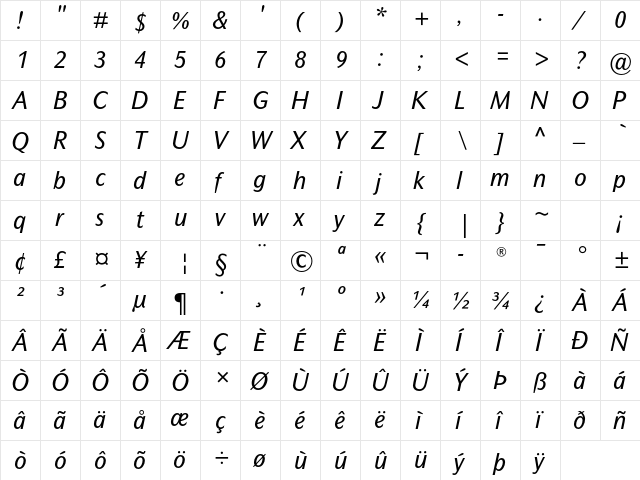
Mahsuri Sans MT Std Italic
Design Context for Mahsuri Sans MT Std Typeface
Mahsuri Sans MT Std takes a measured approach to typography — its balanced proportions and neutral character make it a reliable workhorse for both digital and print work. Its italic angle brings a sense of urgency and motion to the letterforms.
Pro Tip: Try Mahsuri Sans MT Std for annotation and caption copy alongside an upright companion — the contrast in angle creates a dynamic but ordered typographic system.